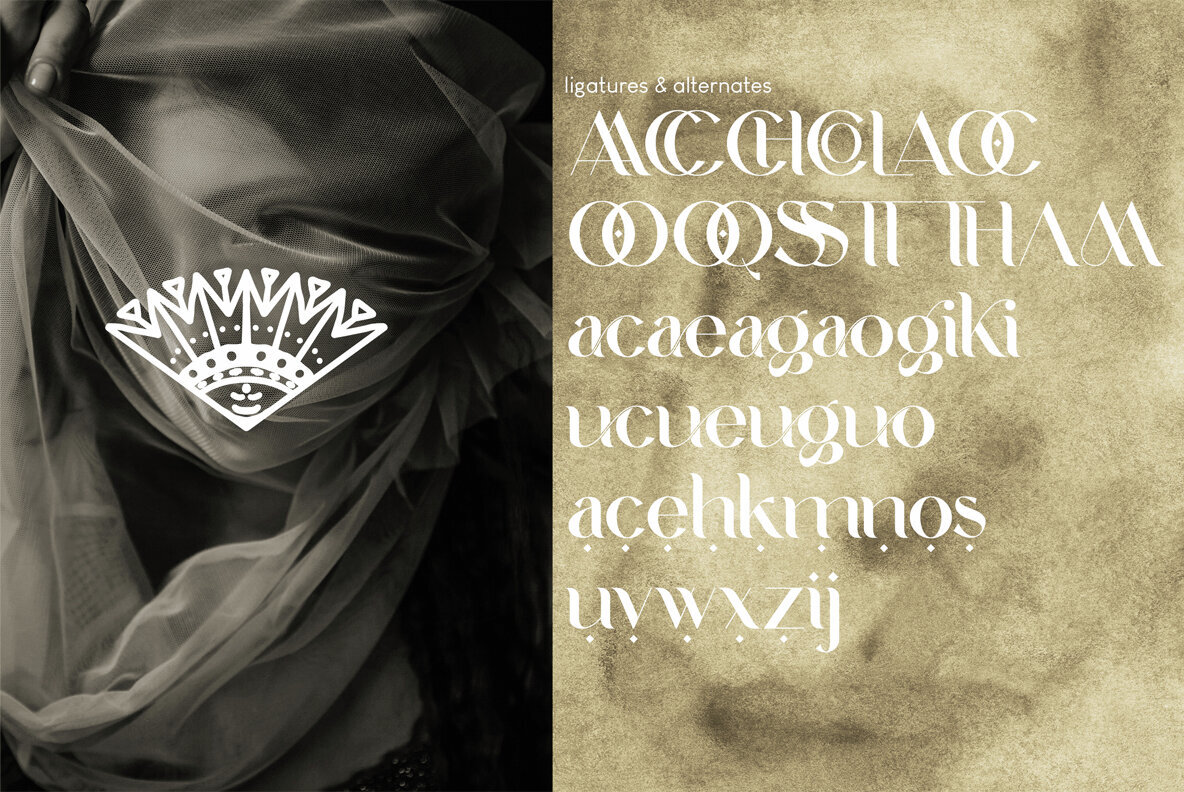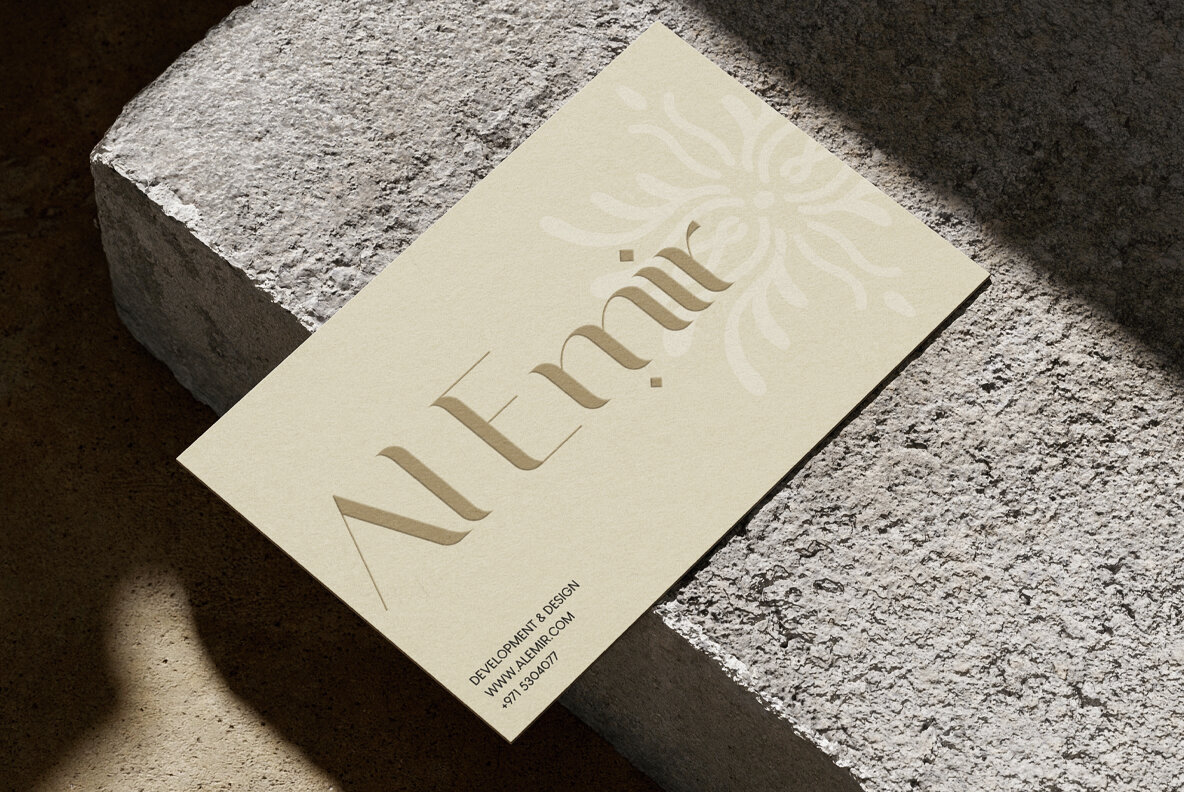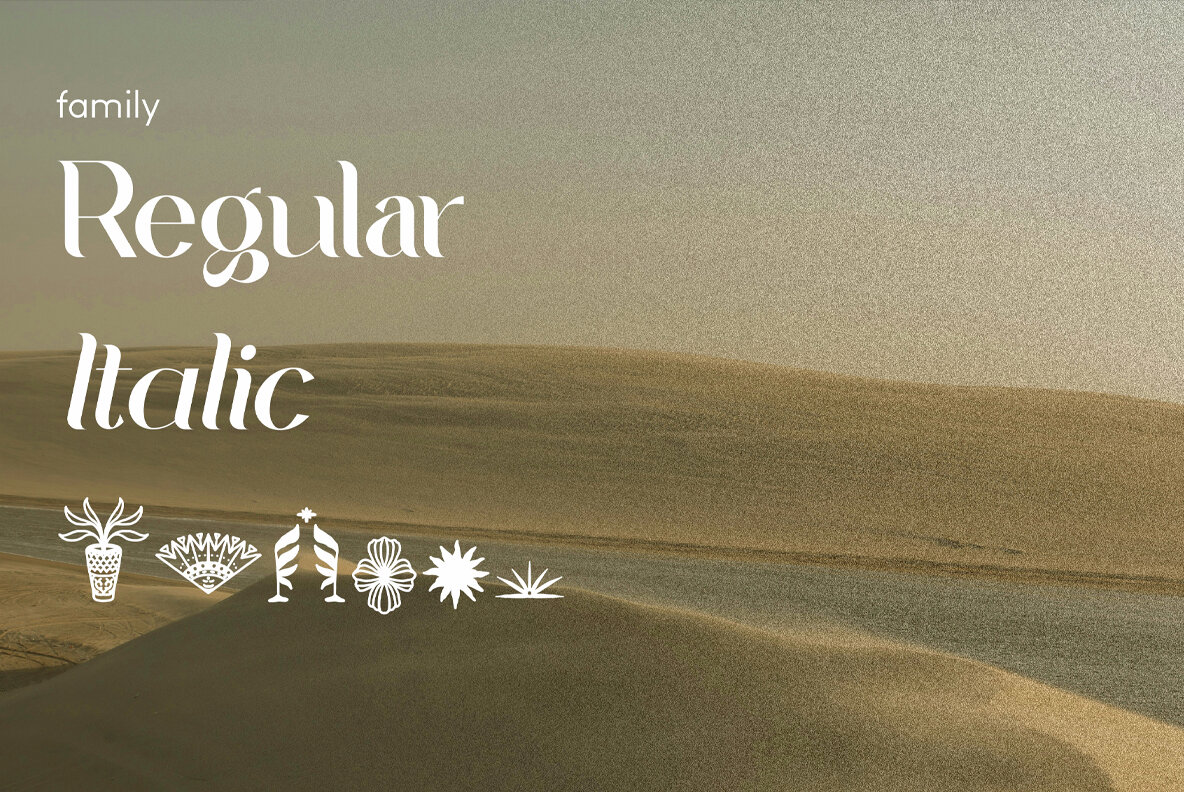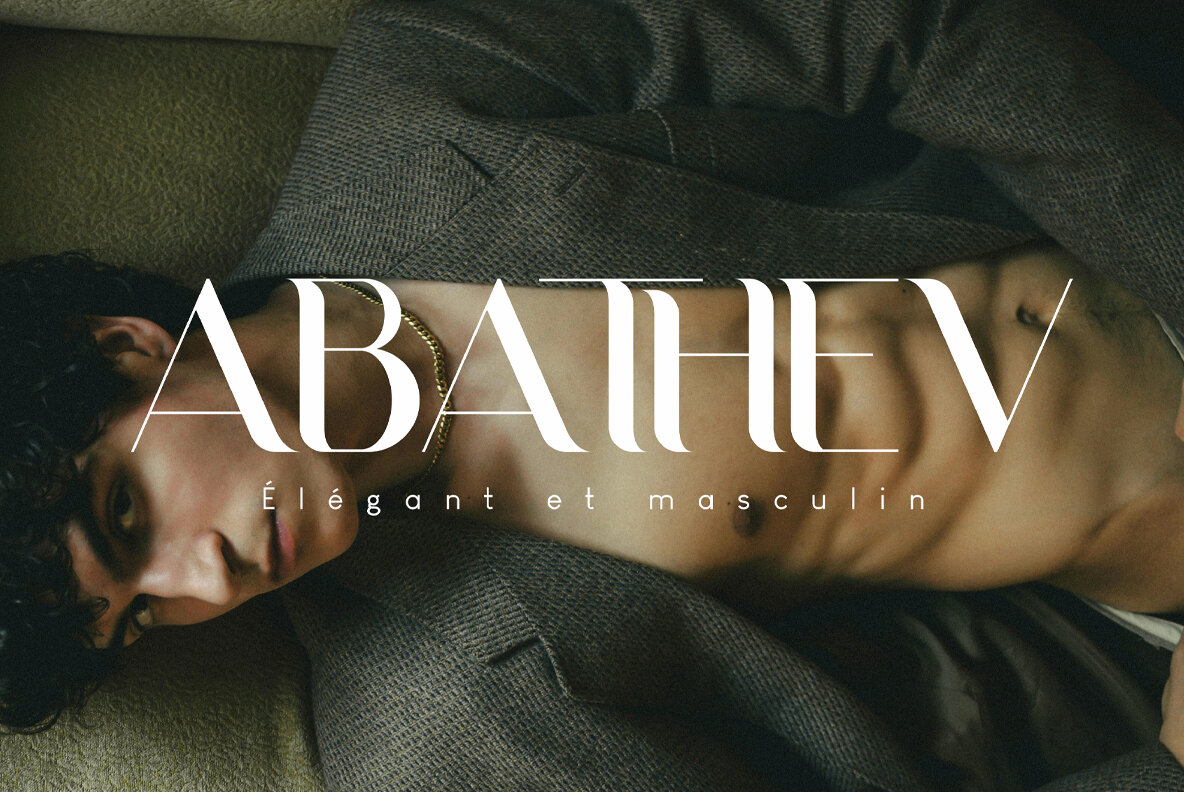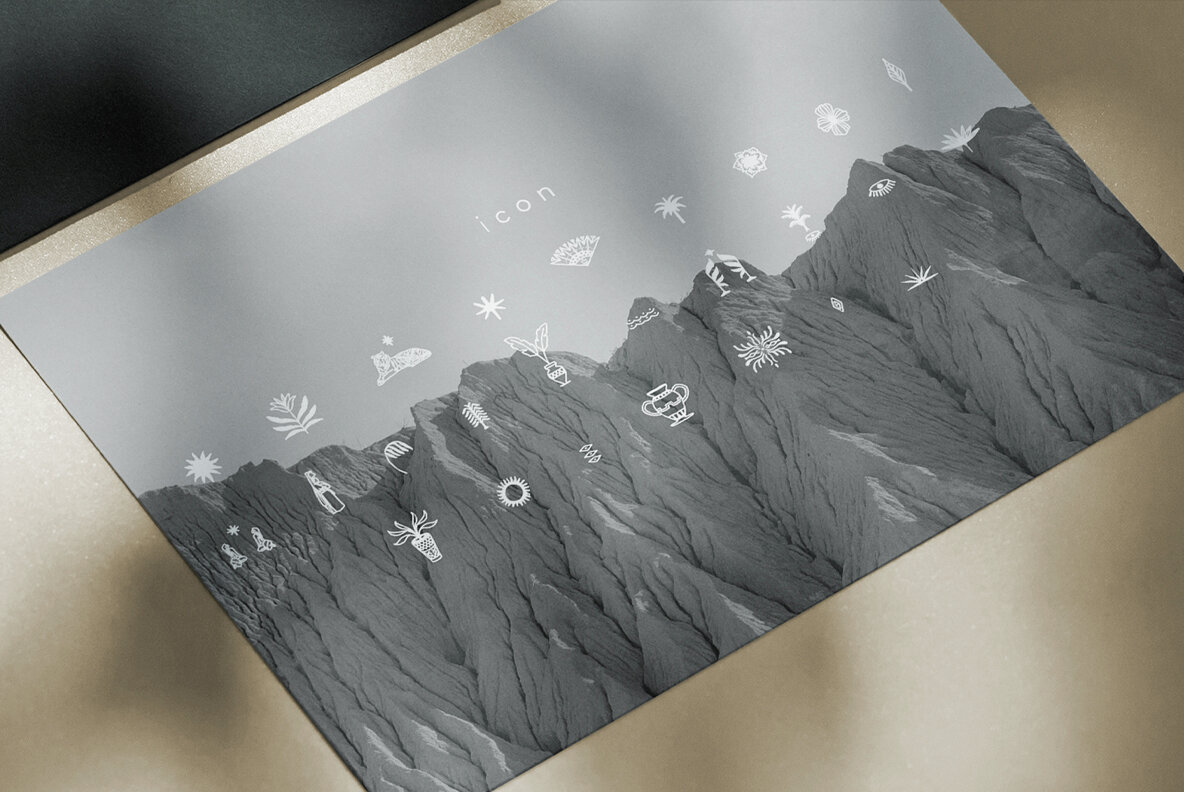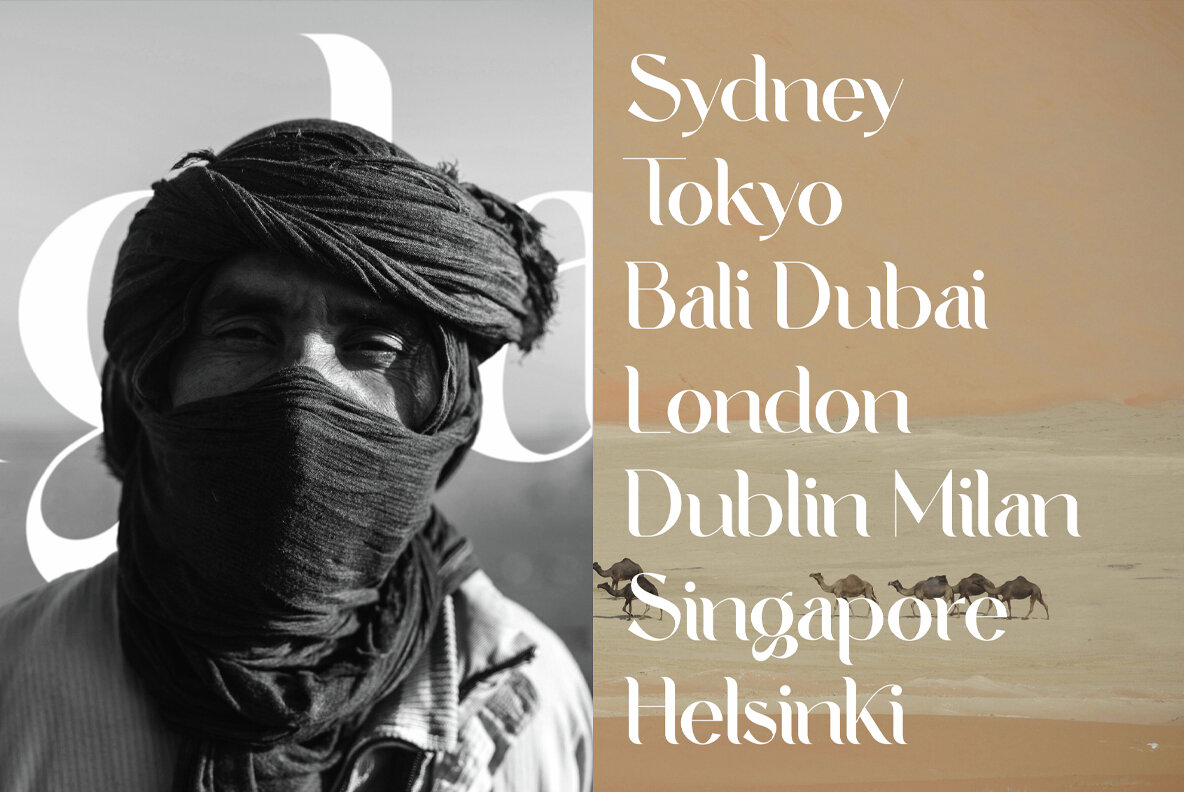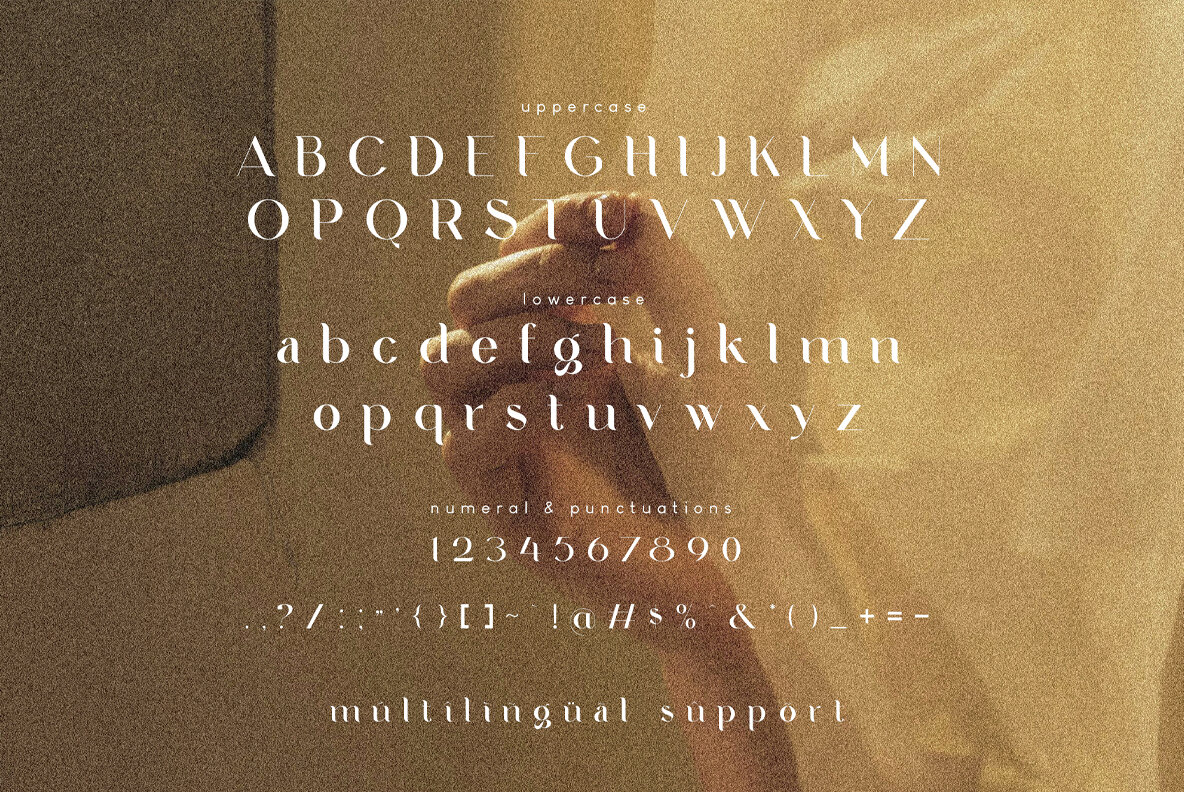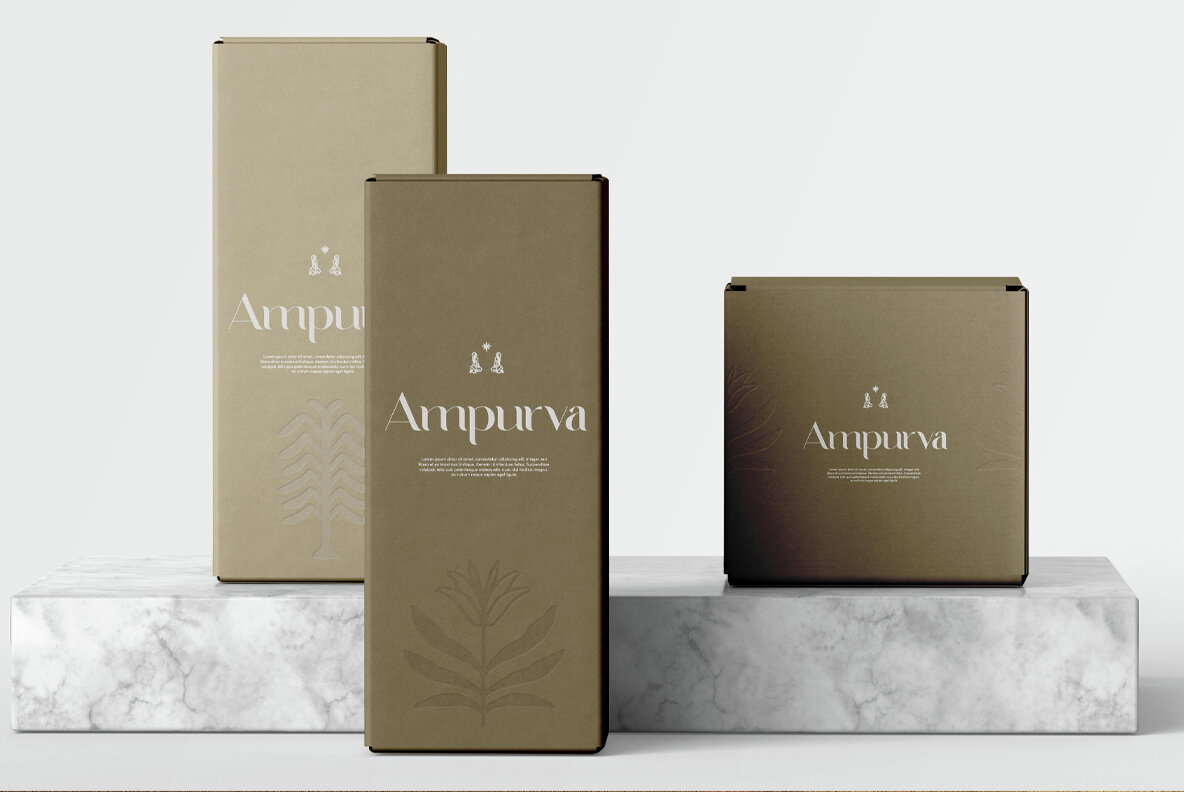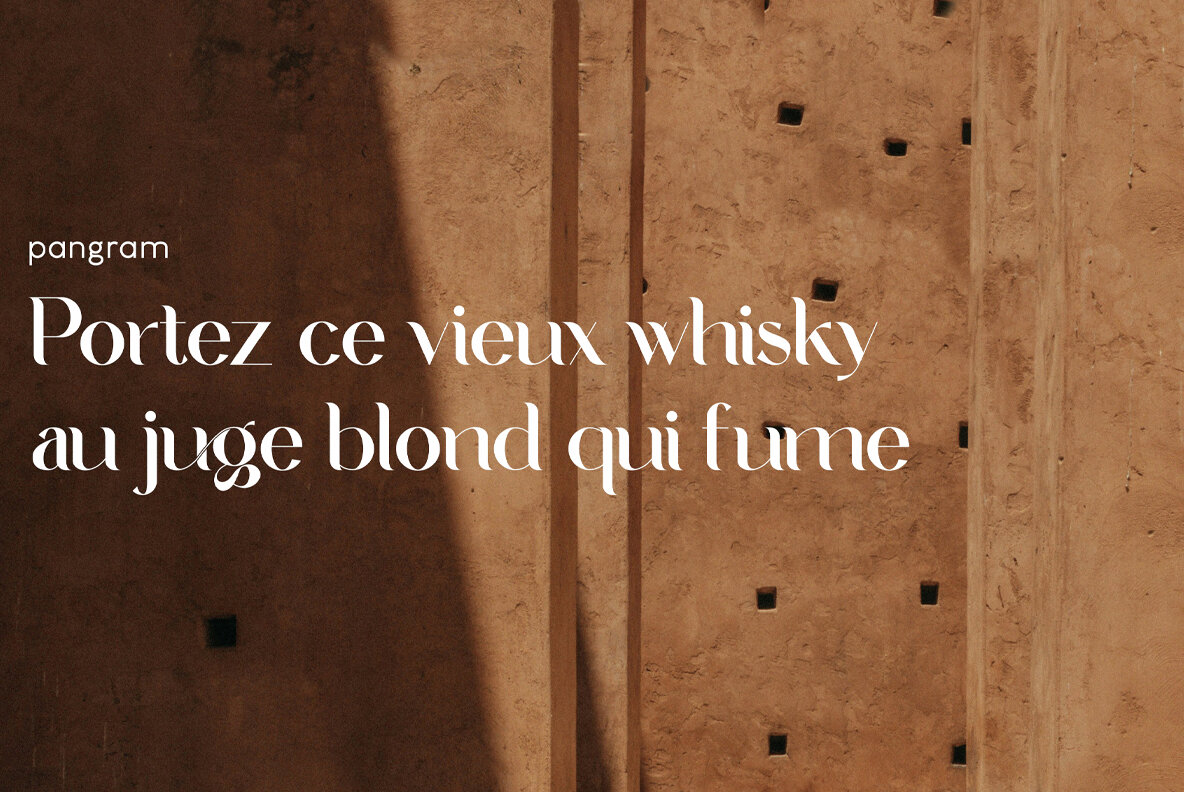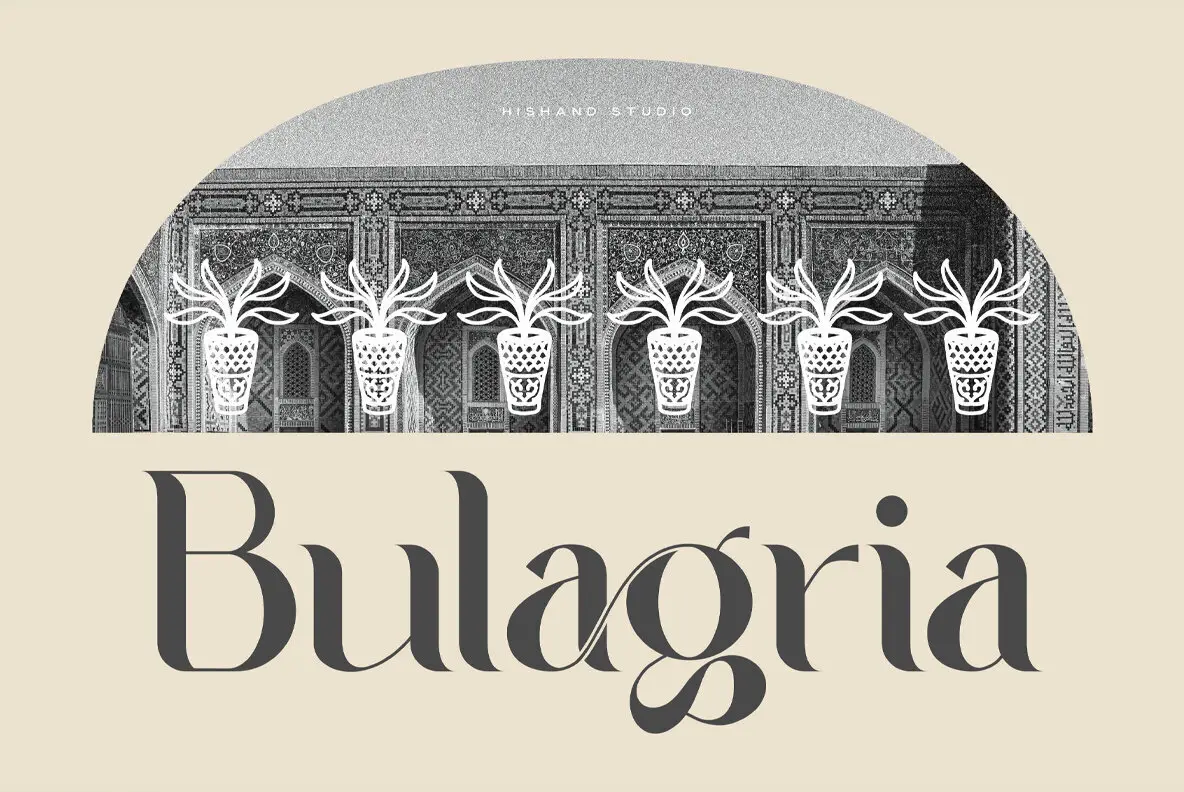
Bulagria Font
Bulagria
Bulagria Italic
Bulagria Icon
Bulagria is a carefully designed serif display font that combines modern elegance with traditional elements. It features distinctive letterforms and stylish ligatures, making it ideal for creating eye-catching designs in areas such as branding, editorial work, and special invitations.
The font includes a range of features to enhance your projects, such as ligatures and alternates for creative flexibility, and both regular and italic styles to suit various design needs. It also offers icon support and kerning for precise letter spacing. Additionally, Bulagria is equipped with multilingual support, ensuring versatility across different languages and audiences.